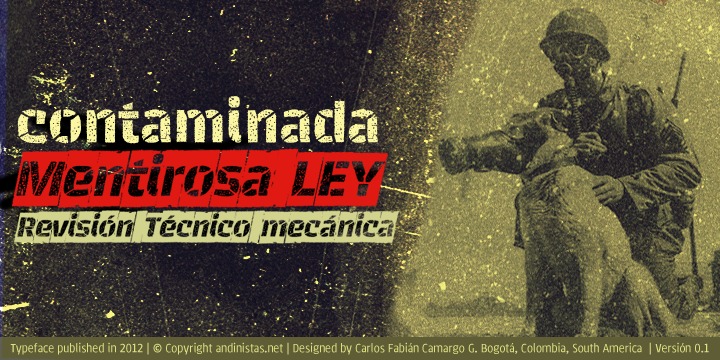
Cíclope is a typeface family designed by Carlos Fabián Camargo in 2012 and used to write the headlines. Its idea is based on an army of stone soldiers that with their size and strength cause earthquakes. Under this concept he obtained stencil and sans serif letters with monstrous shapes and torn counterforms. Its usefulness as well as readability consists in imitate rocks with scars and cracks.
For that reason, Cíclope family has three sizes, each with their respective italics distributed at different levels of corrosion. In addition, each file contains 260 glyphs useful for designing words and phrases with systematically eroded treatments for advertisement material. Thus Cíclope works as a raw material in the exploration of new graphic design. More…
Finally, Cíclope concept has grotesque, geometric and humanistics letters roots that seem disastrous but each and every detail has been planned with high definition drawing. Most importantly, it expresses a big amount of grunge style with cracked edges and medium contrast between thin and thick strokes. In that sense, the writing seems impaired and special for design of logos, posters, flyers, brochures and worn, crusty or demolished graphic design.